The best new typefaces for September 2025
Looking for type inspiration this autumn? Then check out our curated selection of the month's most compelling new releases.
Foundry Æterna by The Foundry Types
Autumn is a time of renewal, and it's natural for designers to start looking further afield for new fonts. Thankfully, this month has delivered a bumper harvest of typographic innovation to expand your options.
The standout theme this September has been the marriage of historical reverence with contemporary functionality. Some of our favourite foundries have taken iconic designs and expanded their reach; whether through multiscript development, variable font technology, or carefully considered optical sizing. Others, meanwhile, have chosen to forge entirely new paths, crafting typefaces that prioritise personality and warmth over clinical neutrality.
So whether you're seeking a workhorse grotesque for extensive branding systems, an expressive display face for impactful headlines, or something with distinctly European character, read on and discover eight new releases that could help bring your creative projects to life.
1. Futura 100 by TypeTogether
Marking a century of Futura, designed by Paul Renner and released in 1927, Futura 100 represents an ambitious reimagining of the iconic geometric sans-serif for modern global communications. TypeTogether's extensive two-year collaboration with Bauer Types has resulted in a multiscript typeface that supports 23 writing systems, covering over 90% of the world's population.
Futura 100 maintains Renner's constructed shapes and warm spirit whilst addressing contemporary digital publishing requirements through optimised readability and flexibility across devices. This first phase includes Arabic, Armenian, Cyrillic, Georgian, Greek, Hebrew, Khmer, Lao, Latin, Myanmar, PanAfrican Latin, and Thai scripts. With major Indic scripts, Simplified Chinese and Hangul to come, Futura 100 promises to become one of the few truly global typefaces.
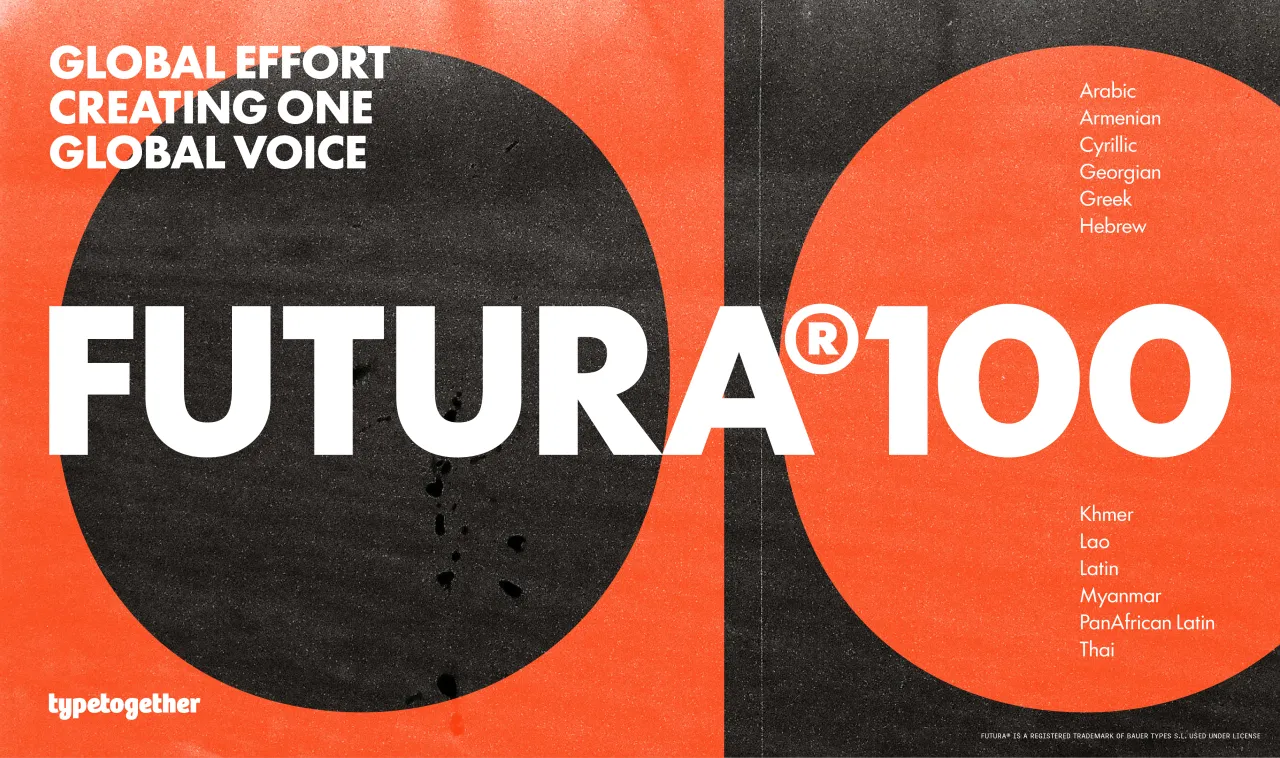
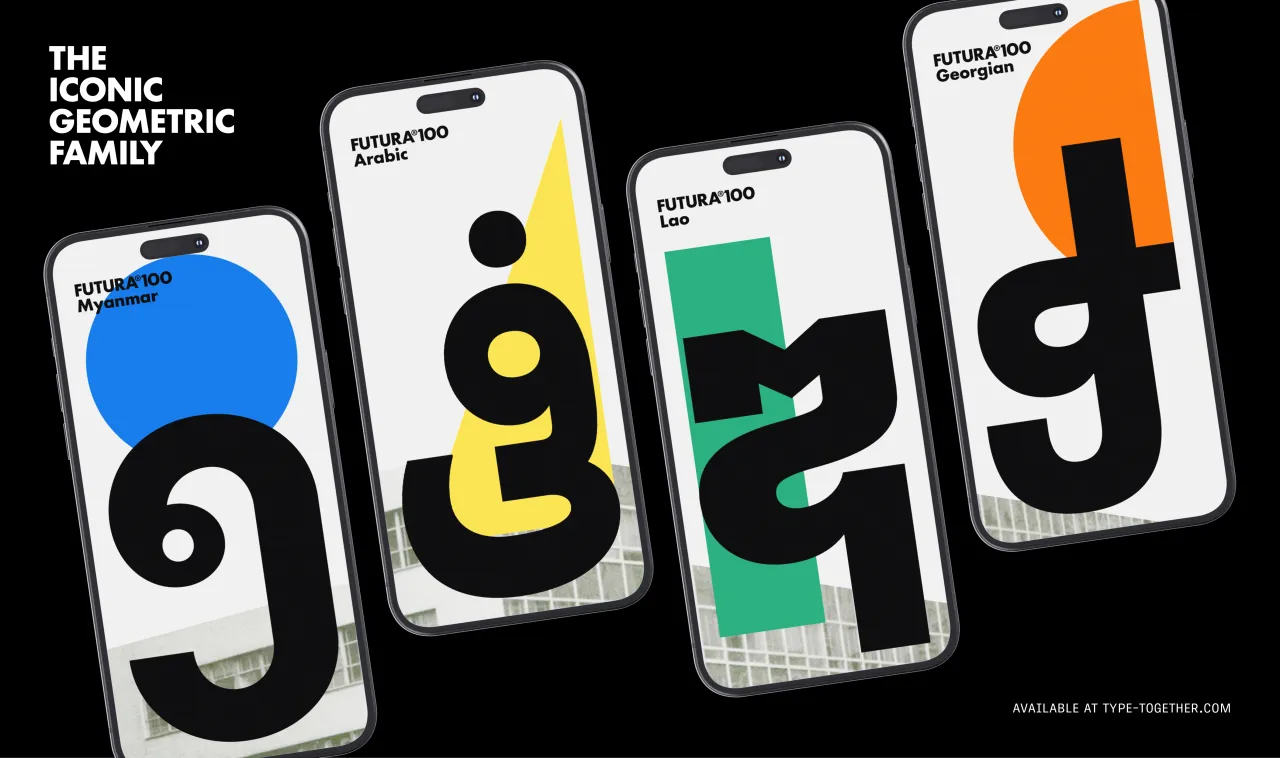
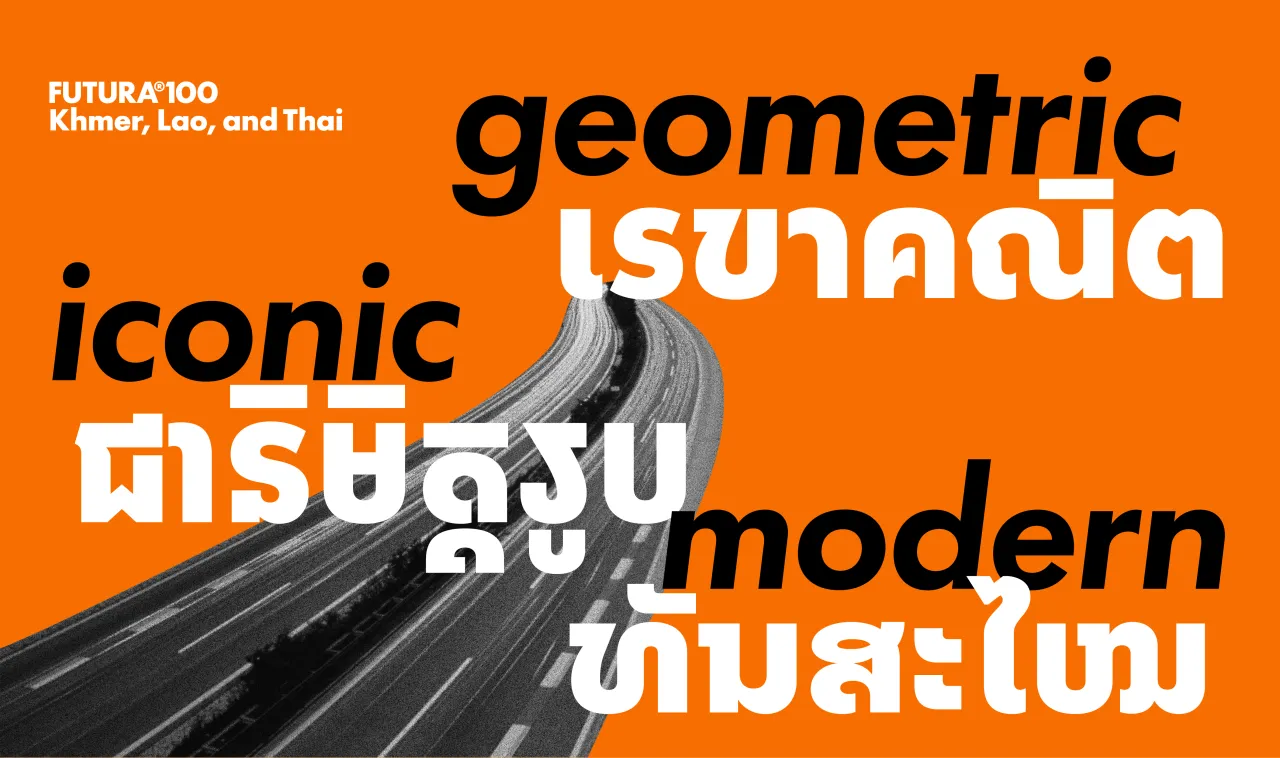
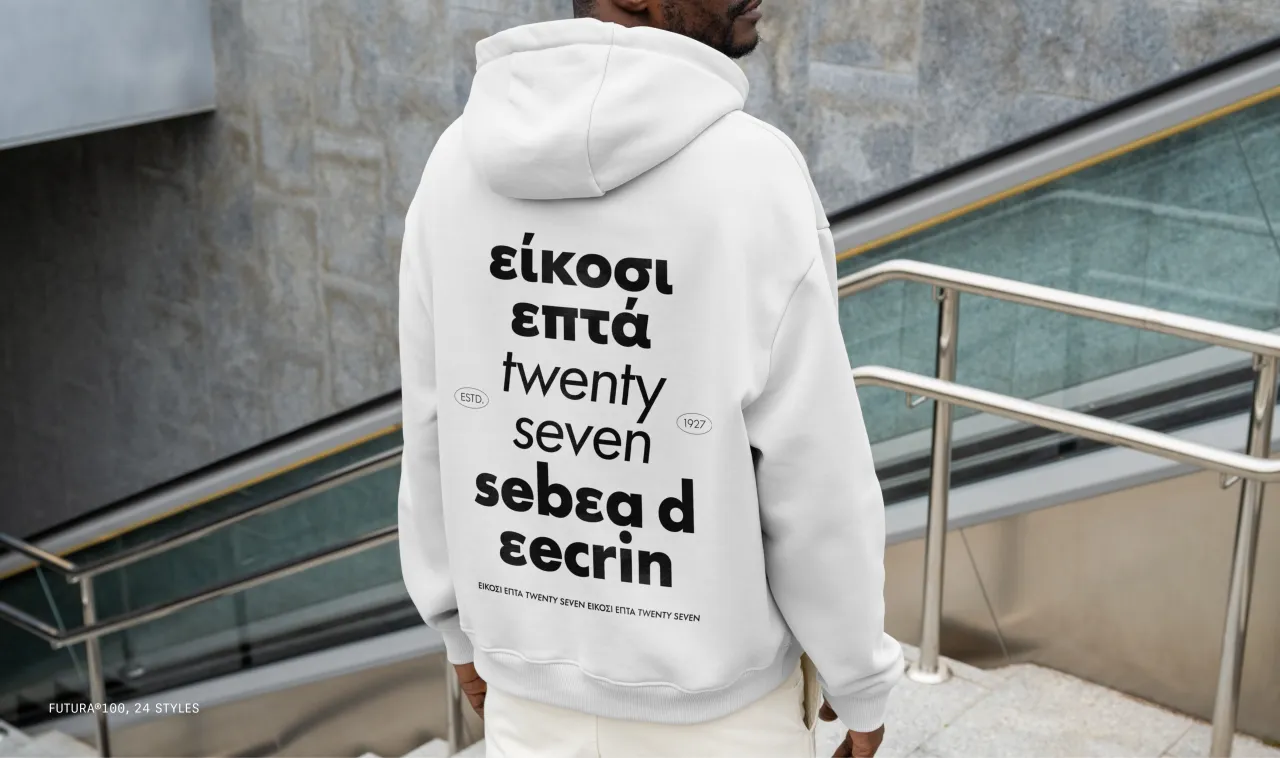
2. GT Era by Grilli Type
GT Era deliberately shuns the algorithmic neutrality of contemporary grotesques, instead drawing inspiration from the warm, idiosyncratic character of pre-modernist designs such as Breite Fette Grotesk, Venus, and early Akzidenz Grotesk. Thierry Blancpain's design for Grilli Type also embraces friction, championing recognition over uniformity and flavour over conformity.
The family comprises Display and Text styles with matching obliques, connected through an optical size axis. Unlike typical optical sizing that makes subtle technical adjustments, GT Era offers genuinely different levels of expressiveness; the Display echoing bold historical personalities whilst the Text performs comfortably in reading applications and digital interfaces.
This approach creates a design system that provides both maximal display impact and utilitarian functionality, celebrating the texture and character that modern design often sanitises away.
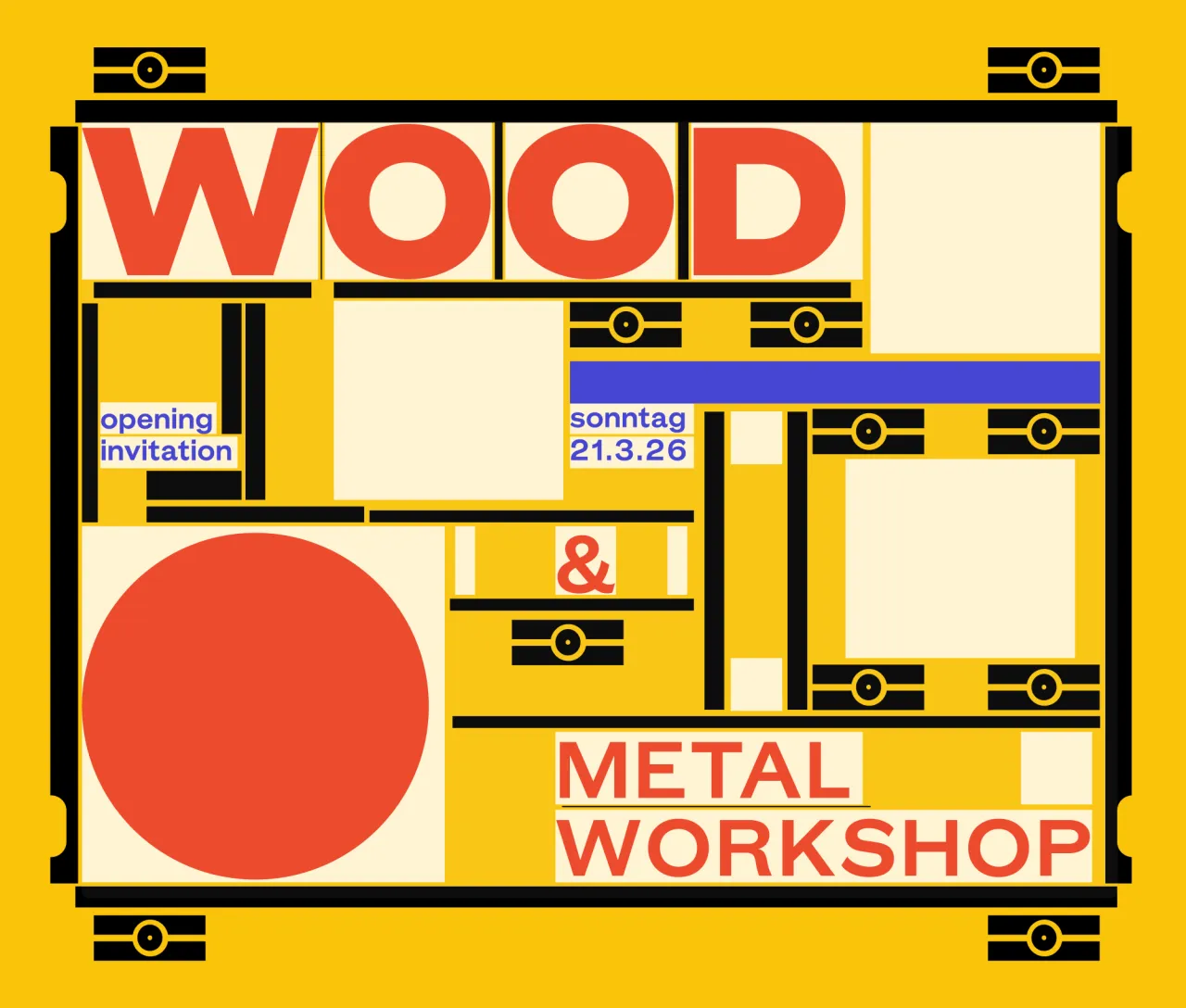
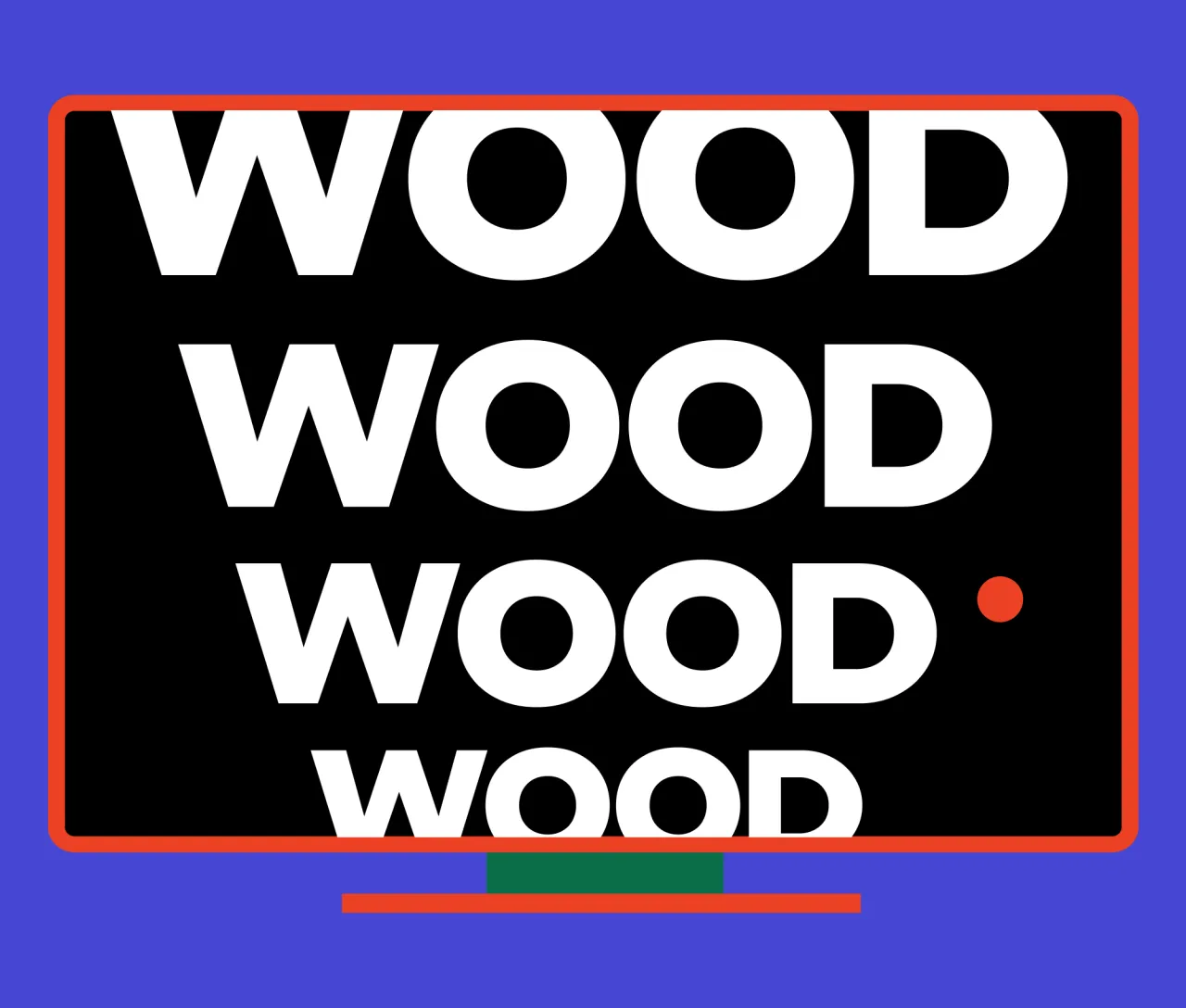
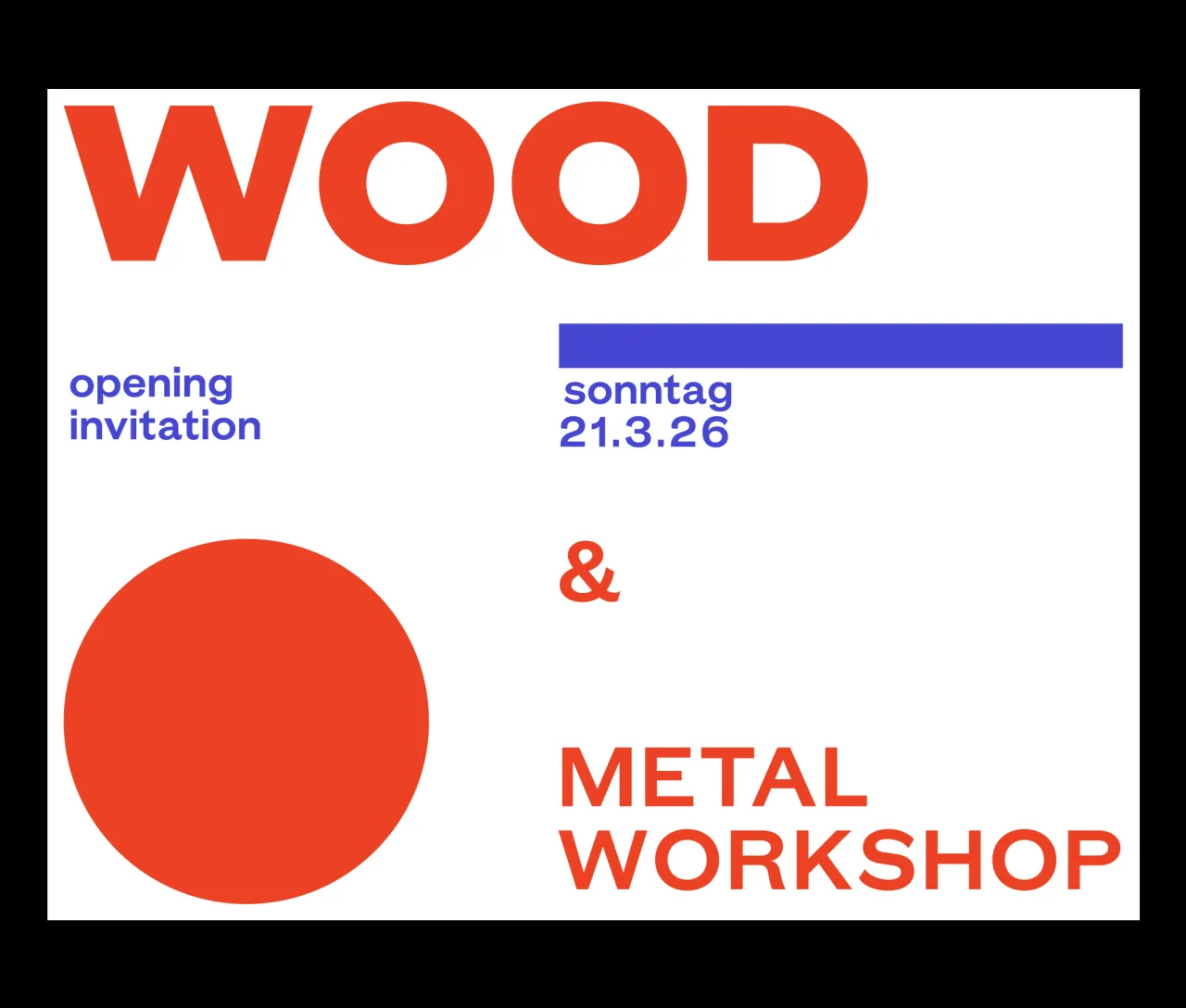
3. Foundry Æterna by The Foundry Types
Foundry Aeterna is a neo-grotesk typeface with a workhorse aesthetic. Responding to what David Quay, one of the principals of the Foundry Types, describes as the "persistent reliance on ubiquitous, overused Neo-Grotesk typefaces," this font isn't just another revival, but a thoughtful synthesis of modernist principles for the digital age.
The design prioritises clarity through harmonious letterforms, a large x-height and compact spacing. Distinctive details include subtly extended terminals on A, C, G, and S, as well as horizontal shaping on A, F, J, T, and Y; quiet expressions of the font's contemporary character that avoid the sterile uniformity of many geometric sans-serifs.
Alongside the typeface, Foundry Aeterna includes over 290 icons and symbols, designed to support a broad range of applications, from transport and user interfaces to information systems and wayfinding. The Symbol set is built on the typeface's capital height, aligned to the baseline, and centrally spaced for seamless integration.
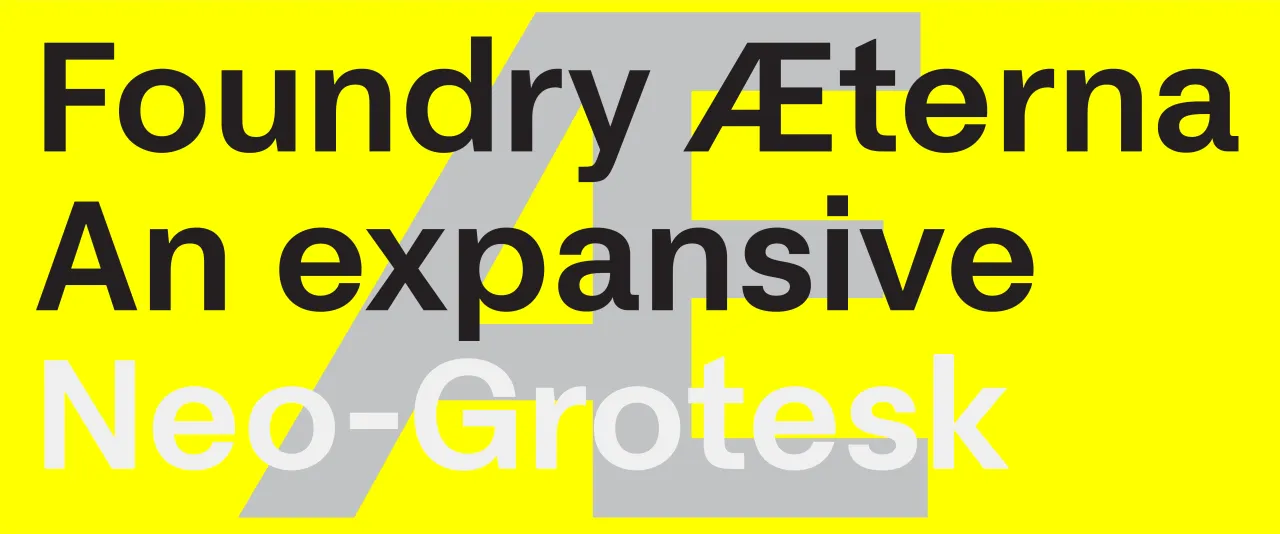
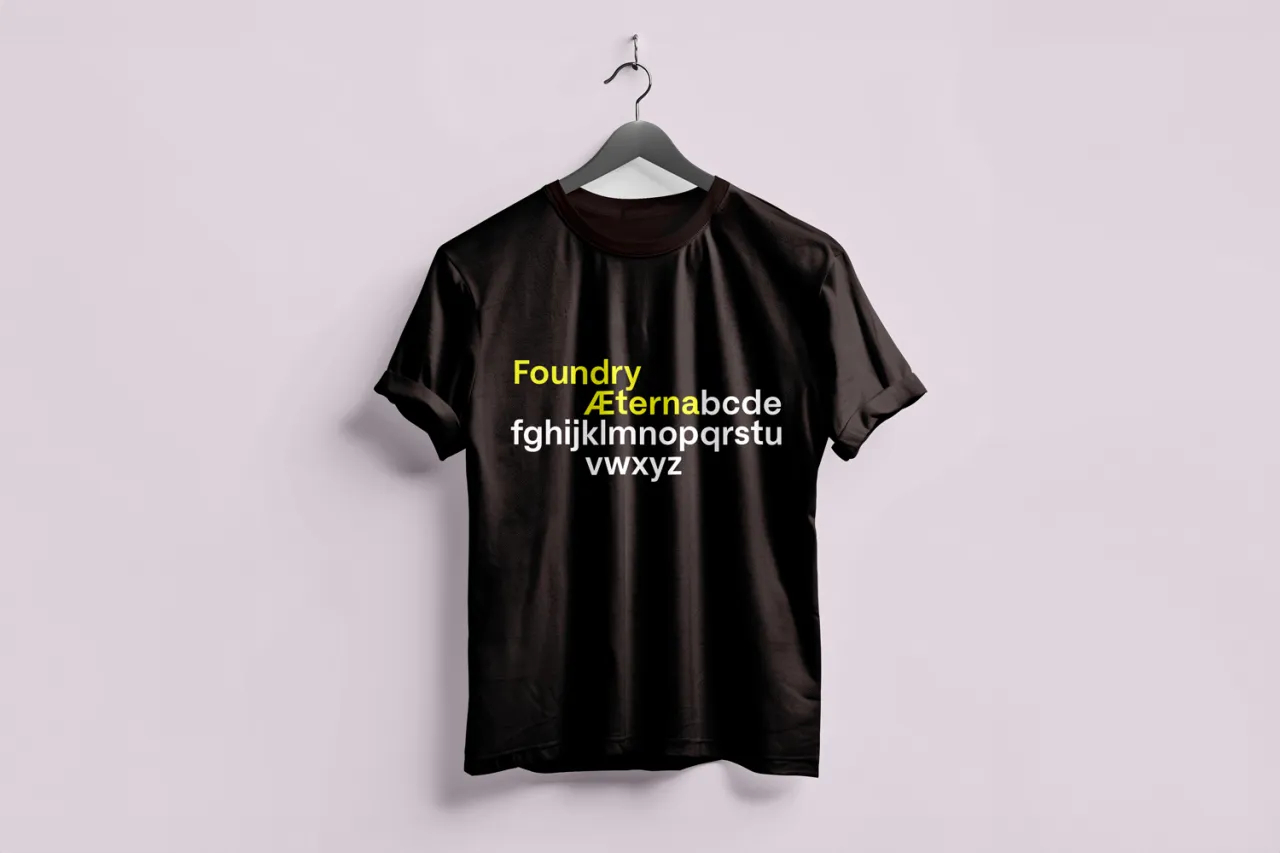
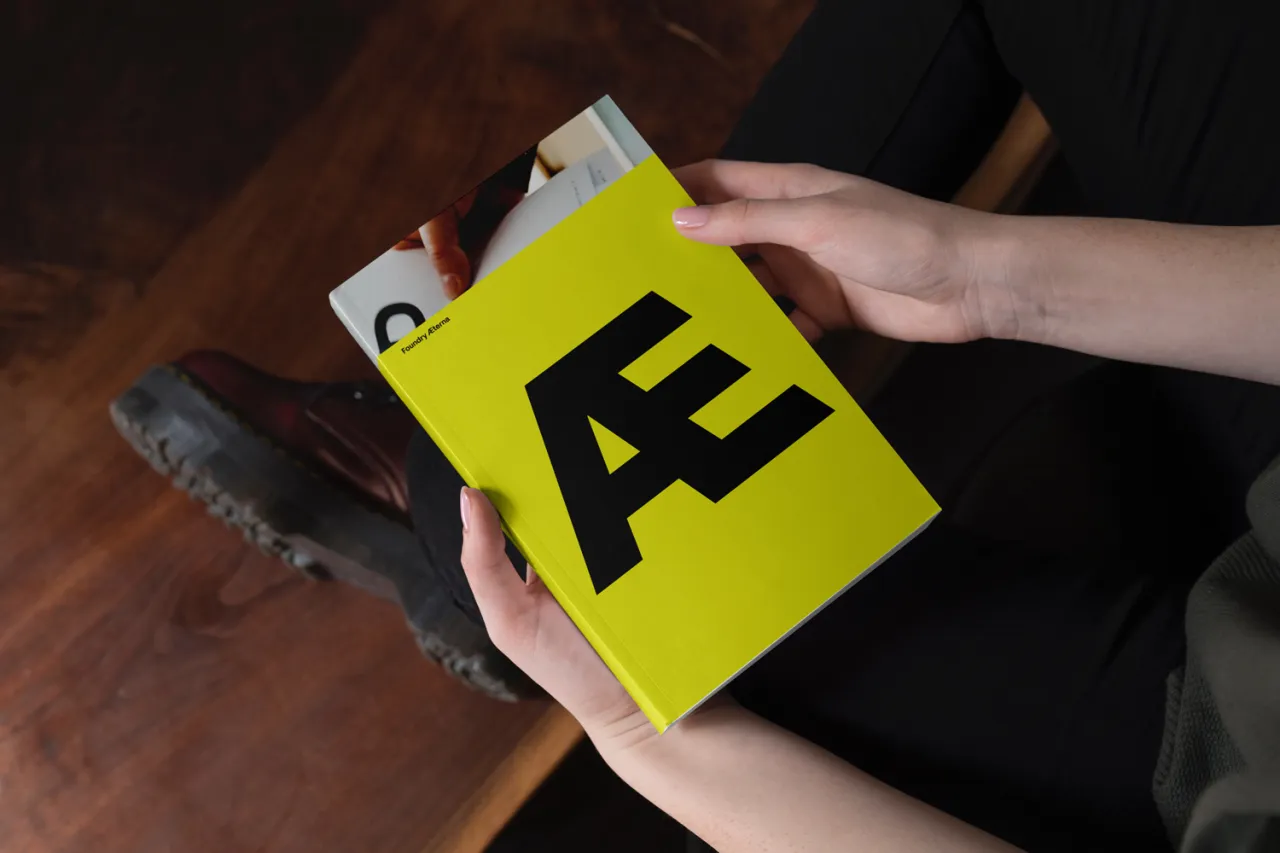
4. Urbolyt by Mostardesign Type Foundry
Urbolyt is a variable font that represents a clash between geometric rigour and organic forms. Each letter is described as raw architecture where razor-sharp angles meet unpredictable curves. Characters like N, A and M rise like concrete skyscrapers, whilst X, C and E breathe with natural movement.
This constant tension between solidity and delicacy creates a singular identity that would be a good choice for impactful headlines, brand logos and event posters. The variable version ranges from 75% to 150% width, enabling designers to sculpt word density and transform headlines into visual manifestos. Overall, this font would be a suitable choice for any design project that requires a strong and memorable visual identity.
5. EE Piscina by errorerror.studio
From the València-based errorerror.studio comes EE Piscina, a modular typeface that, in the words of designers Paloma + Luismi, "brings hints of pool water and aftersun, tastes like ice-cold lemonade and smells like freshly cut grass". Available in three styles (S, M, and L), this release represents the duo's focus on "creating another type of types".
Rather than pursuing neutrality, Paloma + Luismi prioritise storytelling and soul in their typographic work. EE Piscina, in turn, embodies their philosophy of creating typefaces that carry emotional resonance beyond mere functionality; described as "a fan-blown breeze for overheated designers". In more practical terms, the font's modular construction offers flexibility whilst maintaining distinctive character, positioning EE Piscina as an antidote to algorithmic design thinking.
6. LL Unica77 by Lineto
Haas Unica was created in 1980 as a response to licensing restrictions around Helvetica. It's regarded by many as the pinnacle of modernist type design, but it gradually disappeared in parallel with the decline of phototypesetting. Now, LL Unica77 represents its authorised digital revival.
Remastered by original Team '77 member Christian Mengelt from their own drawings, and developed in collaboration with specialist designers, LL Unica77 includes a fully condensed family, rich OpenType features, stylistic sets, full Cyrillic and Greek support, and a fully variable counterpart with three axes for weight, width and slant manipulation.
7. Djaggety by Typeland
Born from a classroom exercise using an 8×8 pixel grid, Djaggety celebrates the beauty of productive constraints and the creative potential found within rigid systems. What began as a teaching tool—where students must build working alphabets using only simple modules—evolved into a three-style display family that embraces rather than refines its inherent coarseness.
The typeface's charm lies in its acceptance of systematic limitations. Every letterform emerges from the same pixel module, creating unexpected quirks and formal solutions that would be impossible through traditional design approaches. Instead of smoothing away these irregularities, Typeland has expanded the concept, allowing the grid's influence to generate character rather than constrain it.
Djaggety's development process reveals fascinating insights into contemporary type design practice. Kerning becomes a maze of compromises when working within such strict parameters, forcing decisions between maintaining character-defining details (like distinctive tails) and achieving rhythmic consistency. The result demonstrates how digital constraints can generate a distinctive personality, offering designers a modular system that's both expressive and deliberately unruly.
8. Gregory Grotesk by Typemates
Designed by Jakob Runge and Antonia Cornelius, Gregory Grotesk strikes a balance between distinctive personality and functional reliability, creating a charismatic typeface that works well in both branding and UI design. It's a great demonstration of how contemporary grotesques can maintain character whilst delivering the smooth texture expected from system fonts.
Gregory's personality emerges through charming quirks embedded within solid structural foundations. Top-heavy letterforms combine with rounded inner corners at angular junctions, creating a handmade patina that humanises digital environments. These trapped-ink effects reference wood type printing traditions whilst serving contemporary aesthetic sensibilities.
The typeface's technical specifications support ambitious typography, featuring 24 individual styles that span compressed to normal widths across typical weight ranges, unified within a single variable font. With Greek and Cyrillic scripts approved by native designers and support for over 270 languages, Gregory Grotesk demonstrates how personality-driven design can maintain global functionality.